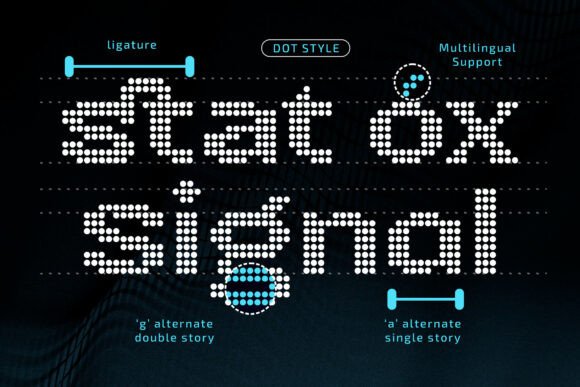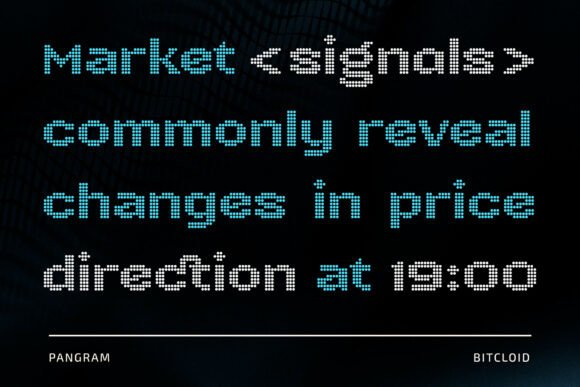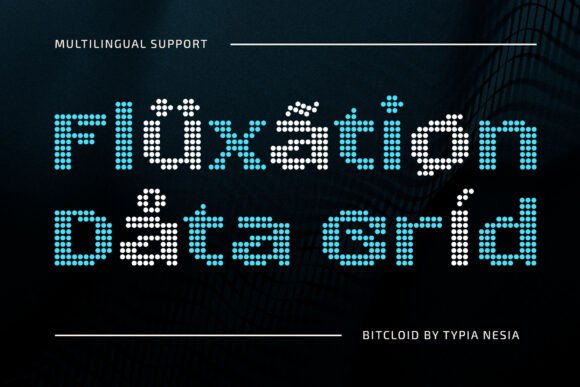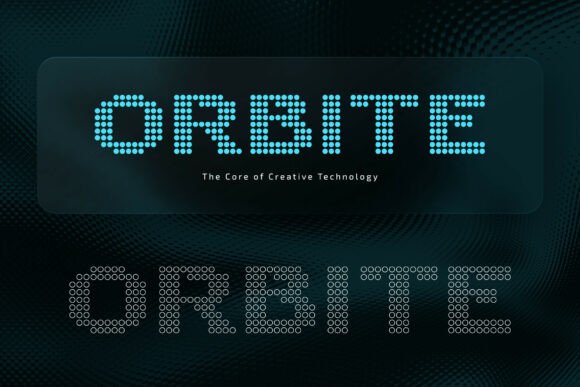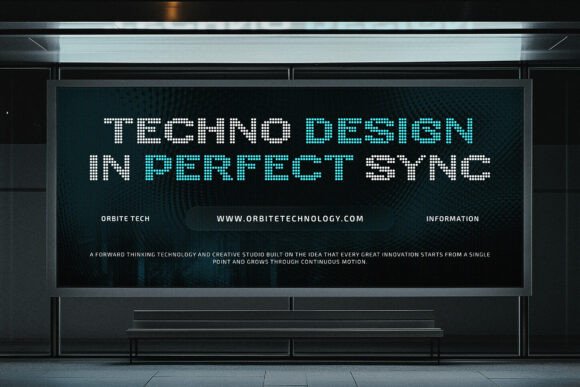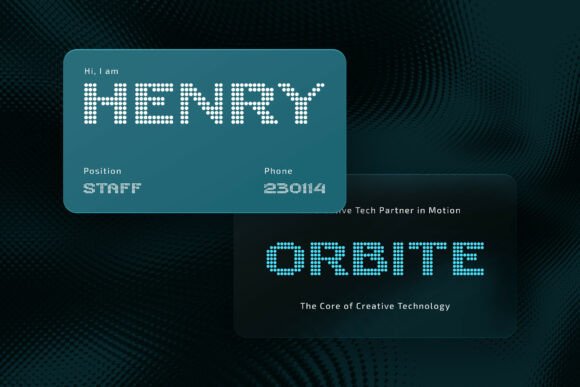
Unlocking the Futuristic Vibes of Bitcloid Font
I’ll never forget the moment I was working on a futuristic game project, and my designer friend asked me to find a font that screamed “cyberpunk.” I scoured the internet, but nothing seemed quite right – until I stumbled upon Bitcloid. This modern, futuristic digital dot font has been a game-changer for me, and I’m excited to share its awesomeness with you! 🚀
What is Bitcloid Font?
Bitcloid is a modern futuristic digital dot font inspired by technology, cyber aesthetics, and retro pixel displays. Designed with modular dot structures and clean geometric shapes, this typeface delivers a high-tech, digital, and sci-fi atmosphere that stands out in modern visual design.
What I Love About Bitcloid ✨
- ✅ Unique and distinctive look: Bitcloid’s modular design and dot structures make it instantly recognizable and perfect for futuristic designs.
- ✅ High-tech and digital feel: This font screams technology and innovation, making it ideal for game titles, tech branding, and digital interfaces.
- ✅ Extensive character set: Bitcloid comes with a wide range of characters, including glyphs and stylistic alternates, giving you plenty of creative options.
- ⚠️ Legibility at small sizes: Bitcloid can be a bit tricky to read at very small sizes, so make sure to test it thoroughly in your design.
- ⚠️ Limited suitability for body text: Due to its futuristic and digital nature, Bitcloid might not be the best choice for large blocks of body text.
The Story Behind Bitcloid
Bitcloid was designed by a team of creatives who wanted to capture the essence of futuristic technology and cyber aesthetics. Inspired by retro pixel displays and modular design, they crafted a font that’s both nostalgic and forward-thinking. The result is a typeface that’s perfect for designers, gamers, and tech enthusiasts alike.
| Font Name | Bitcloid Font |
| Author | Typia Nesia |
Q: What is Bitcloid font used for?
Bitcloid is ideal for game titles, tech branding, digital interfaces, neon-themed graphics, logos, cyberpunk visuals, and any project that requires a futuristic and technological identity.